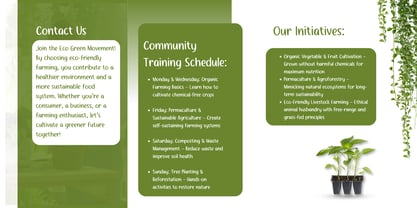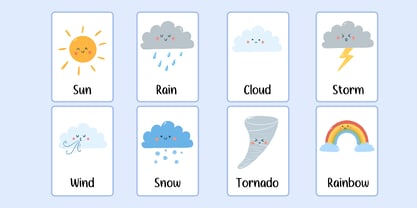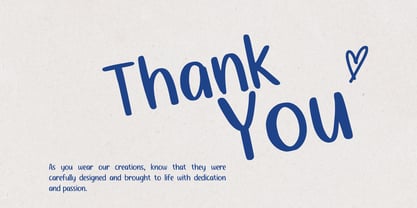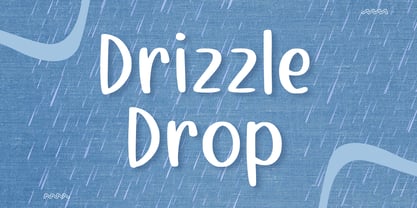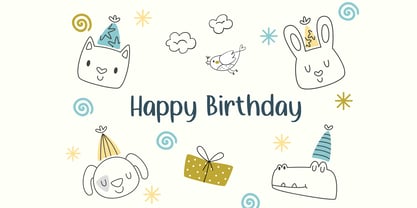
Drizzle Drop
by Aisyah
The Drizzle Drop Font Family was designed by Nur Aiysah Amalia and published by Aisyah. Drizzle Drop contains 1 styles. More about this family
Experience the charm of "Heavy Rain," an adorable yet sophisticated handwriting font. This distinctive typeface, characterized by its cool and playful style, is ideal for establishing a unique brand identity or delivering comprehensive text with flair. Whether you're crafting professional memos or getting creative, let Heavy Rain serve as your perfect typography companion.
Designers: Nur Aiysah Amalia
Foundry: Aisyah